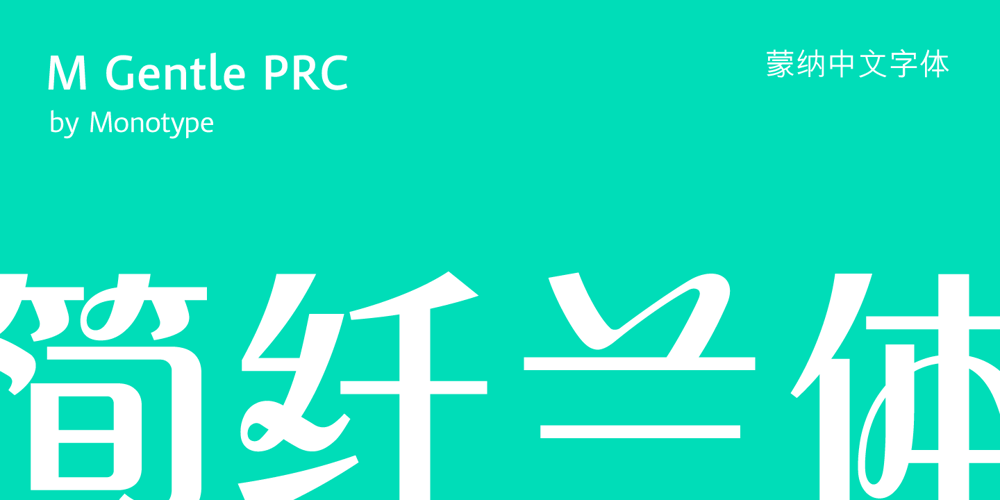
M Gentle PRC
M Gentle PRC font
M Gentle PRC Font Family was designed by Monotype HK Design and published by Monotype HK. M Gentle PRC contains 3 styles and family package options. The design concept of M Gentle is inspired by the aesthetics of ribbon gymnastics and the tenderness of orchids. The beauty of the two are combined in one typeface. Keeping the characters in right proportion and standard structure, its horizontal and vertical strokes (橫、豎) are generally straight. The linkage among dots (點), downstrokes and the ticks (剔) to the right represent a sense of movement and fill the typeface with liveliness and humanity. While M Gentle Light shows purity and softness, Medium and Bold fonts have their own personalities. They are all legible and suitable for a wide range of purposes, make the family a popular choice in the advertising industry.